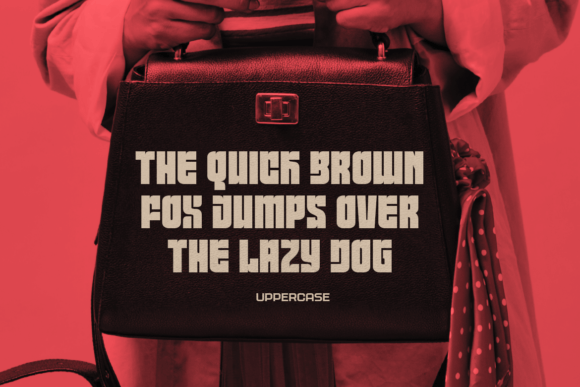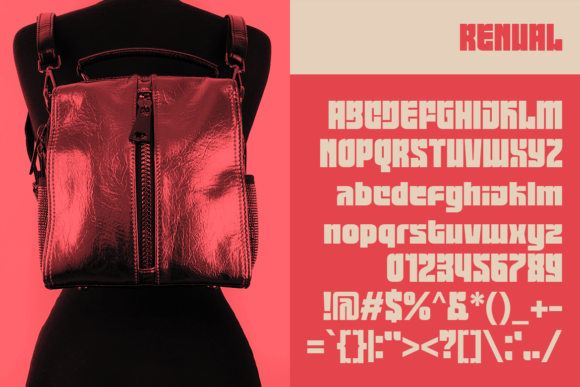
Introduction to Renual Font Font
Fonts play a crucial role in design, and the Renual Font font is a typeface that brings both character and versatility to any project. Whether you’re working on a branding project, a website, or a print design, the Renual Font font offers a unique style that can elevate your work.
Be bold, loud, and experimental with Renual.
Fonts that you rarely see Perfectly fit for your urban poster design, Instagram branding, music video, logo, magazine, fashion, album artwork, cover artwork, game design, NFT project, and many more.
Key Features of Renual Font Font
Why Choose Renual Font Font?
The Renual Font font is more than just a typeface – it’s a design tool that helps you communicate your message with style and clarity. Its unique character set and versatile design make it suitable for a wide range of applications, from elegant invitations to bold headlines.
With its carefully crafted letterforms and balanced proportions, the Renual Font font ensures readability and visual appeal across all mediums.
What makes Renual Font font special?
The Renual Font font stands out with its unique design, exceptional readability, and versatility across various design applications.